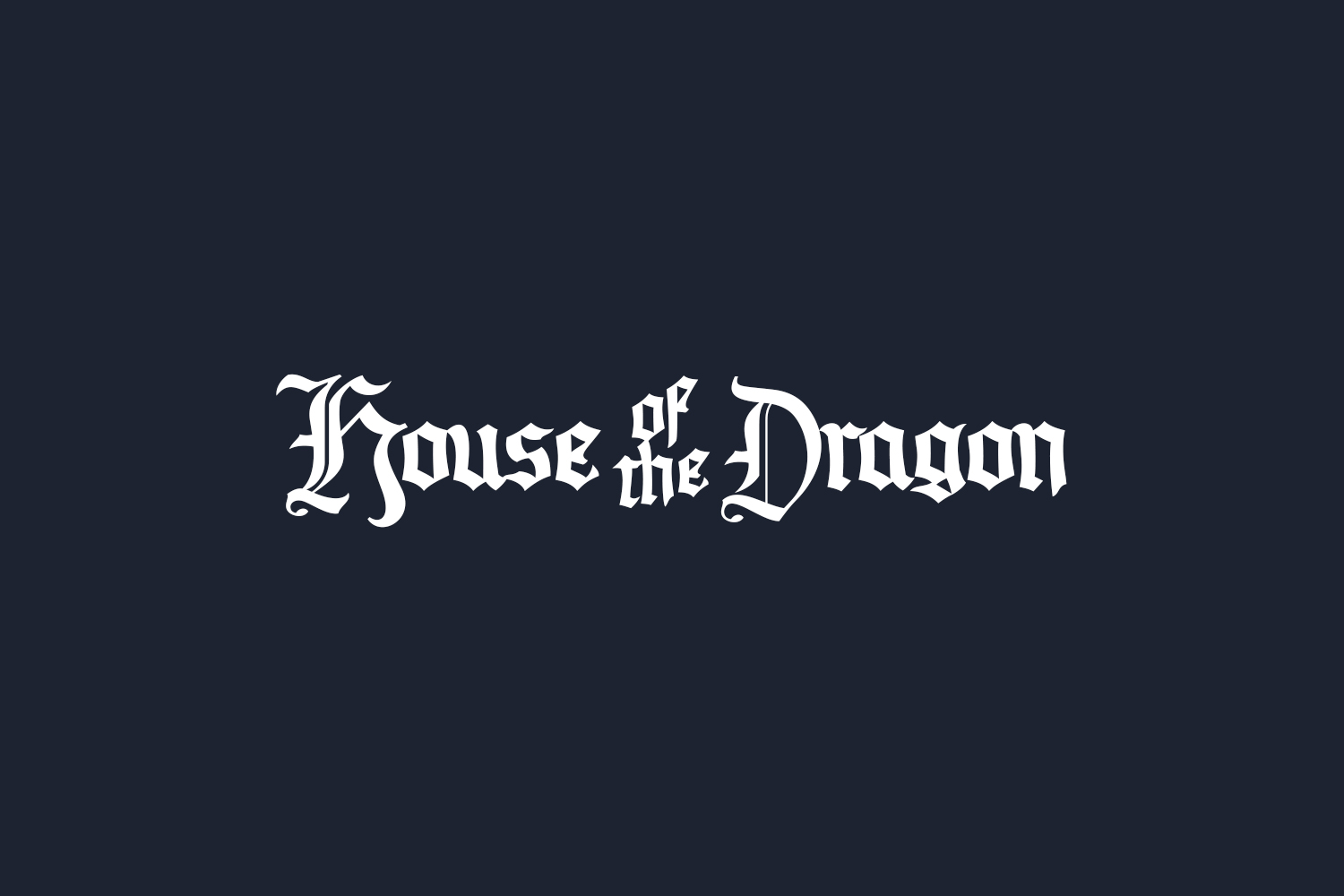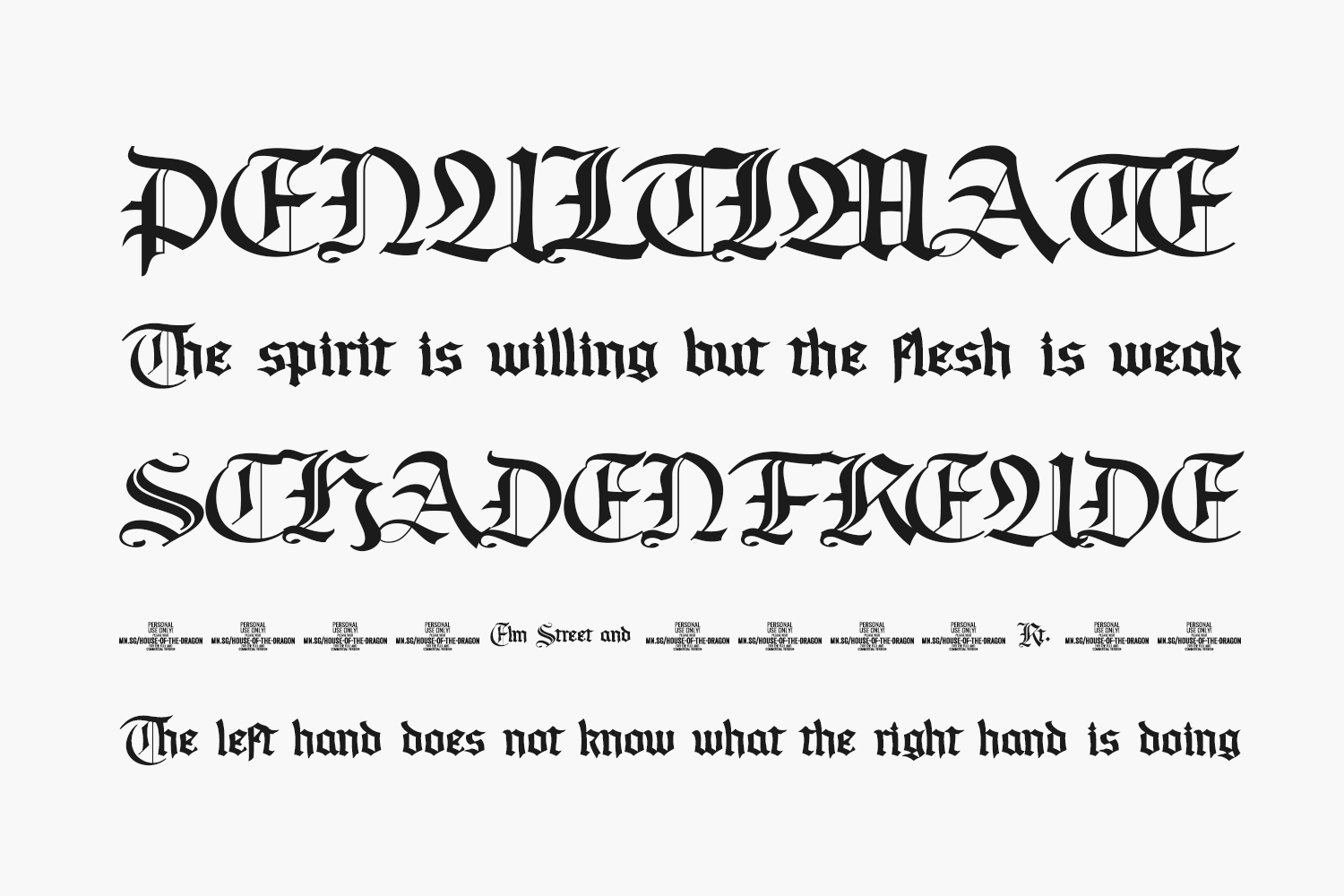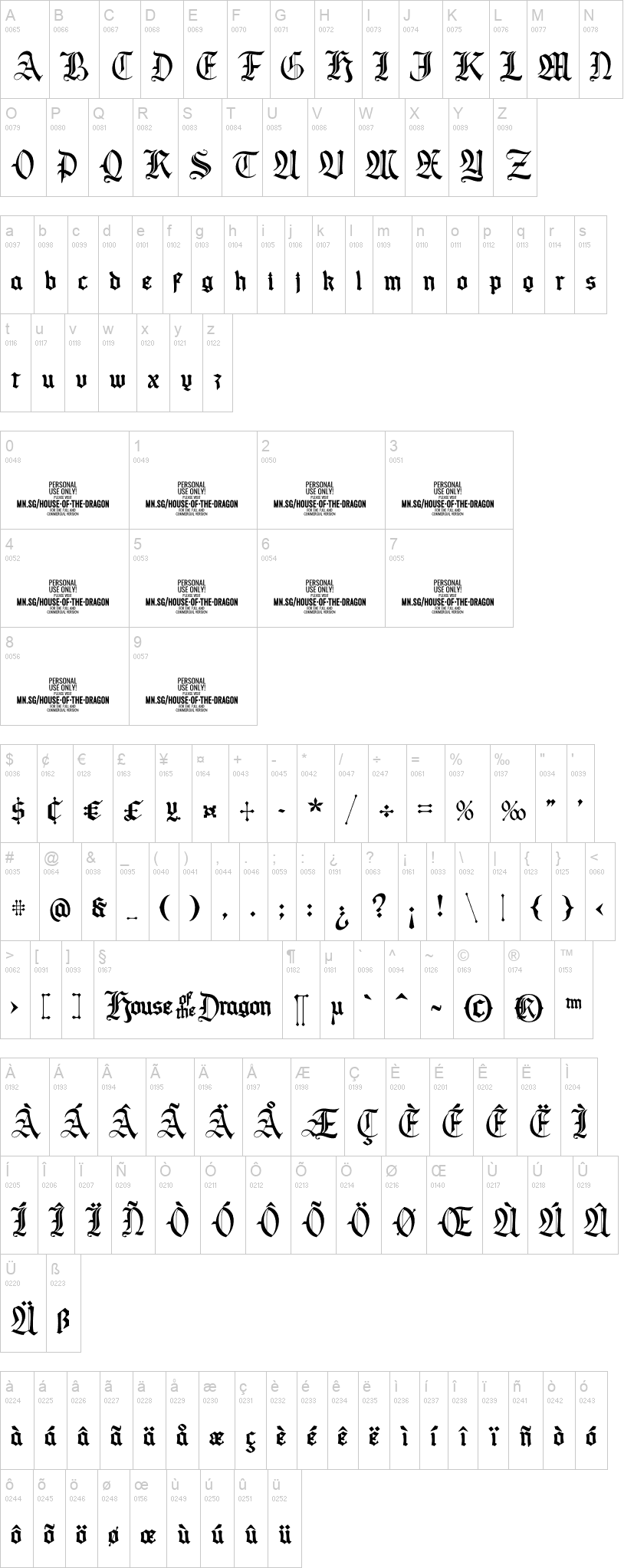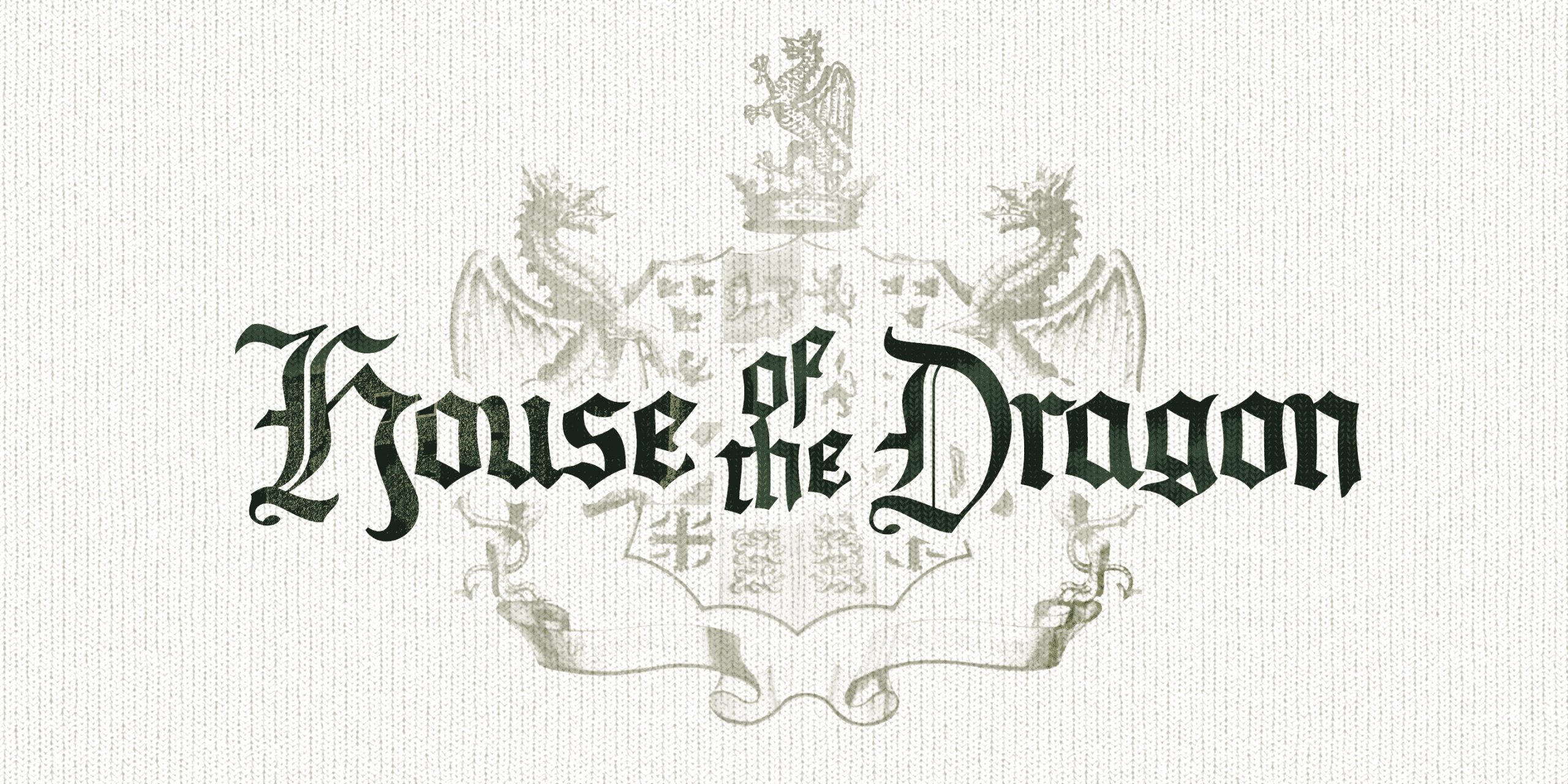
House Of The Dragon Font
House Of The Dragon Font - Web download house of the dragon personal font family · free for personal use · note: This font is for personal use only! To purchase a commercial license, visit:. Web house of the dragon is a gothic blackletter typeface, drawn and created by mans greback. This font is for personal use only! House of the dragon is a gothic blackletter typeface, drawn and created by mans greback.
This font is for personal use only! To purchase a commercial license, visit:. This font is for personal use only! Web download house of the dragon personal font family · free for personal use · note: House of the dragon is a gothic blackletter typeface, drawn and created by mans greback. Web house of the dragon is a gothic blackletter typeface, drawn and created by mans greback.
This font is for personal use only! To purchase a commercial license, visit:. House of the dragon is a gothic blackletter typeface, drawn and created by mans greback. This font is for personal use only! Web house of the dragon is a gothic blackletter typeface, drawn and created by mans greback. Web download house of the dragon personal font family · free for personal use · note:
House of the dragon is a gothic blackletter typeface, drawn and created by mans greback. This font is for personal use only! Web house of the dragon is a gothic blackletter typeface, drawn and created by mans greback. This font is for personal use only! Web download house of the dragon personal font family · free for personal use ·.
This font is for personal use only! House of the dragon is a gothic blackletter typeface, drawn and created by mans greback. Web house of the dragon is a gothic blackletter typeface, drawn and created by mans greback. To purchase a commercial license, visit:. Web download house of the dragon personal font family · free for personal use · note:
House of the dragon is a gothic blackletter typeface, drawn and created by mans greback. Web house of the dragon is a gothic blackletter typeface, drawn and created by mans greback. Web download house of the dragon personal font family · free for personal use · note: To purchase a commercial license, visit:. This font is for personal use only!
Web house of the dragon is a gothic blackletter typeface, drawn and created by mans greback. House of the dragon is a gothic blackletter typeface, drawn and created by mans greback. To purchase a commercial license, visit:. This font is for personal use only! This font is for personal use only!
House of the dragon is a gothic blackletter typeface, drawn and created by mans greback. This font is for personal use only! To purchase a commercial license, visit:. This font is for personal use only! Web house of the dragon is a gothic blackletter typeface, drawn and created by mans greback.
To purchase a commercial license, visit:. This font is for personal use only! Web house of the dragon is a gothic blackletter typeface, drawn and created by mans greback. House of the dragon is a gothic blackletter typeface, drawn and created by mans greback. This font is for personal use only!
House of the Dragon Font
This font is for personal use only! House of the dragon is a gothic blackletter typeface, drawn and created by mans greback. Web download house of the dragon personal font family · free for personal use · note: To purchase a commercial license, visit:.
'Game of Thrones' Prequel 'House of the Dragon' Officially Begins
To purchase a commercial license, visit:. House of the dragon is a gothic blackletter typeface, drawn and created by mans greback. This font is for personal use only! Web house of the dragon is a gothic blackletter typeface, drawn and created by mans greback. Web download house of the dragon personal font family · free for personal use · note:
House of the Dragon font by Måns Grebäck FontRiver
Web house of the dragon is a gothic blackletter typeface, drawn and created by mans greback. To purchase a commercial license, visit:. This font is for personal use only! House of the dragon is a gothic blackletter typeface, drawn and created by mans greback. Web download house of the dragon personal font family · free for personal use · note:
House of the Dragon PERSONAL Windows font free for Personal
Web download house of the dragon personal font family · free for personal use · note: House of the dragon is a gothic blackletter typeface, drawn and created by mans greback. Web house of the dragon is a gothic blackletter typeface, drawn and created by mans greback. This font is for personal use only! To purchase a commercial license, visit:.
House of the dragon is a gothic blackletter typeface, drawn and created by mans greback. To purchase a commercial license, visit:. Web download house of the dragon personal font family · free for personal use · note: Web house of the dragon is a gothic blackletter typeface, drawn and created by mans greback.